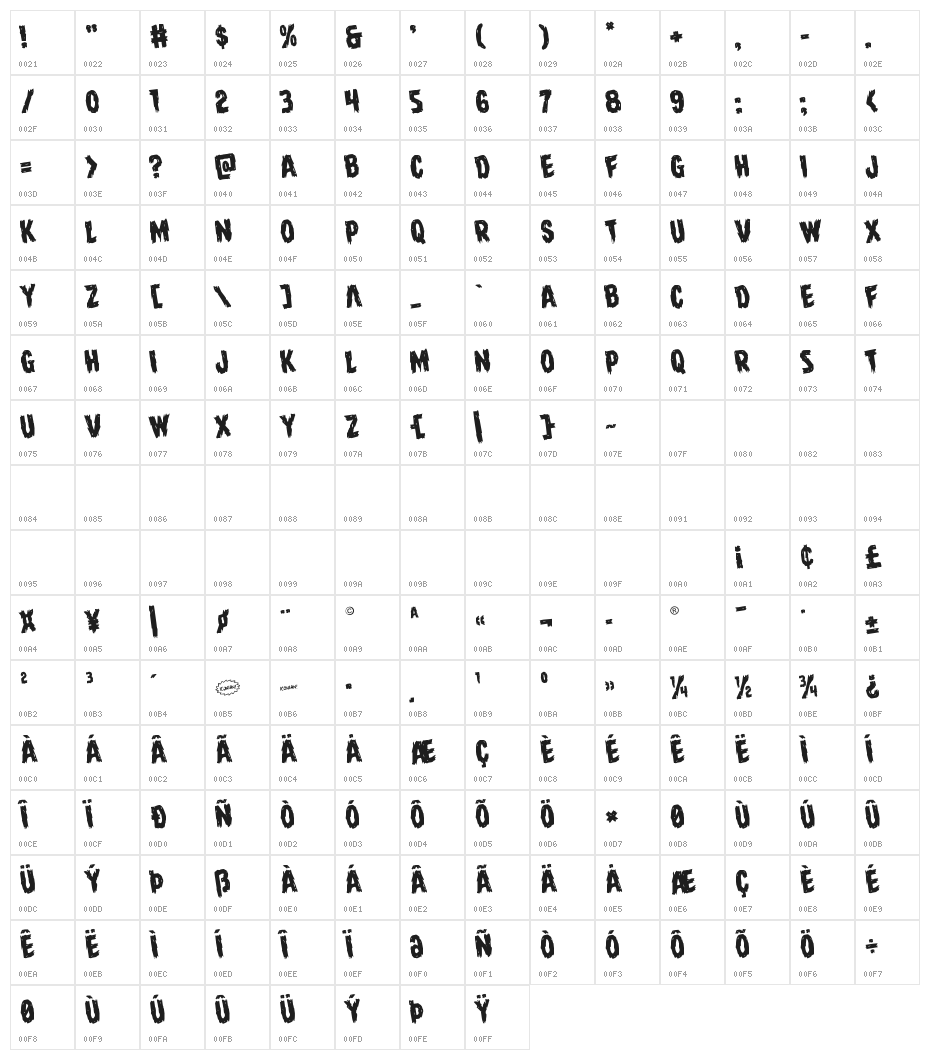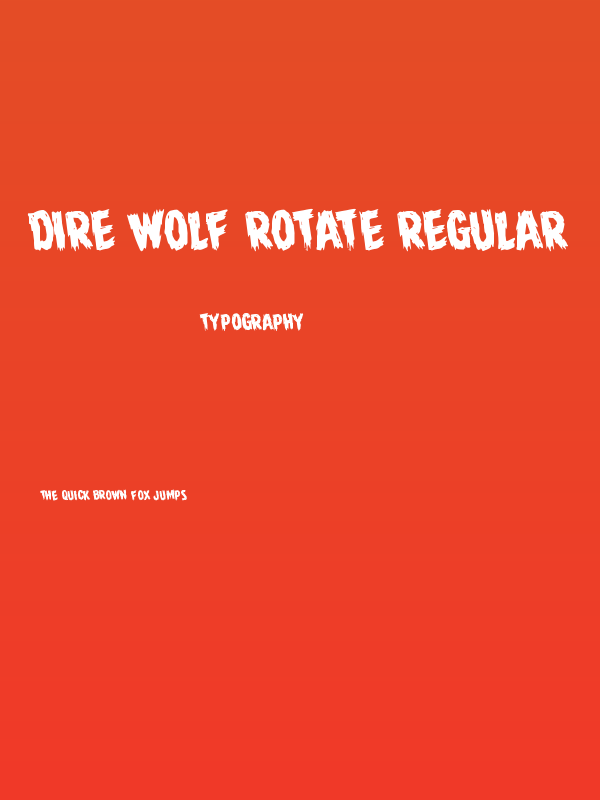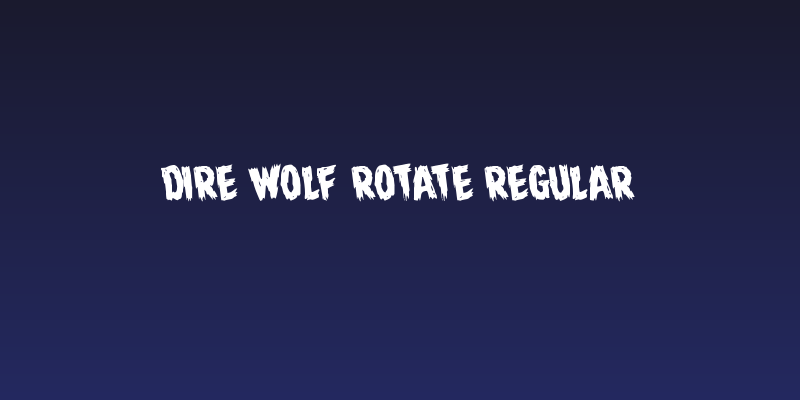
Dire Wolf Rotate Regular Font
Dire Wolf Rotate Regular Description
This font features a bold and rugged design, reminiscent of claw marks or rough brush strokes. The characters are jagged and uneven, giving a wild and untamed appearance. The uppercase and lowercase letters maintain a consistent style, with thick strokes and irregular edges. Numbers and special characters follow the same aesthetic, ensuring a cohesive look across all glyphs. This font is highly decorative and makes a strong visual impact, suitable for projects that require a bold and adventurous feel.
| Proposed Projects | Ideal for horror-themed designs, adventure posters, video game titles, or any project needing a wild, edgy aesthetic. |